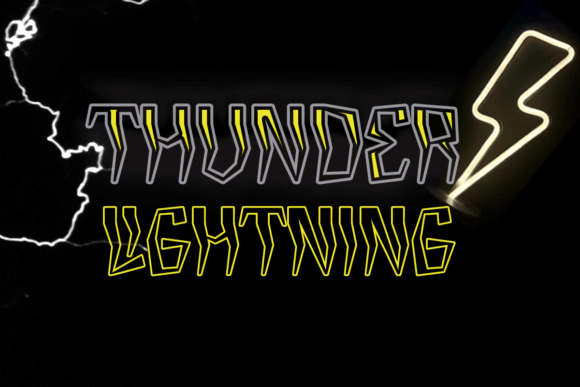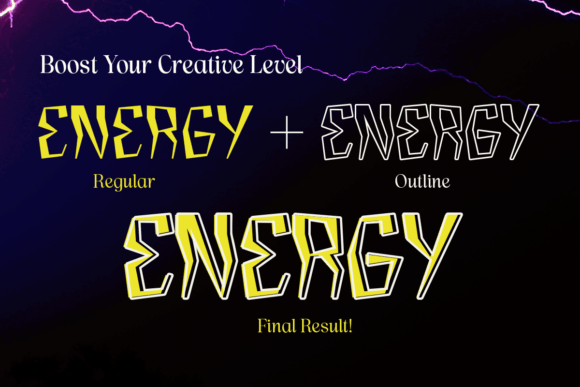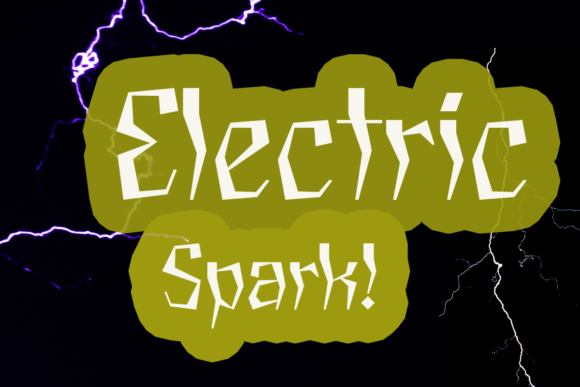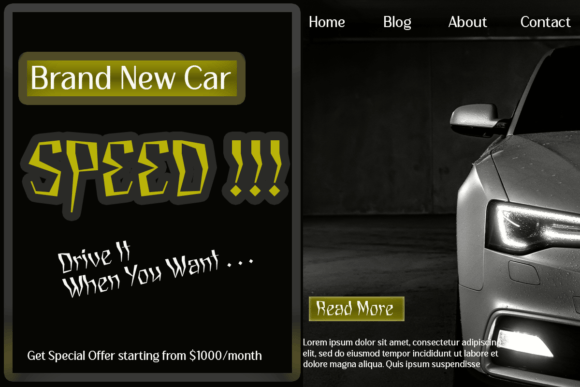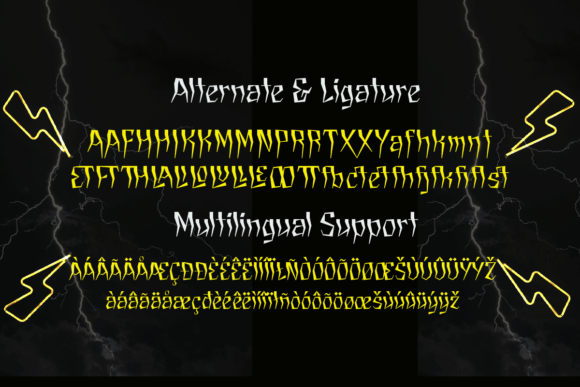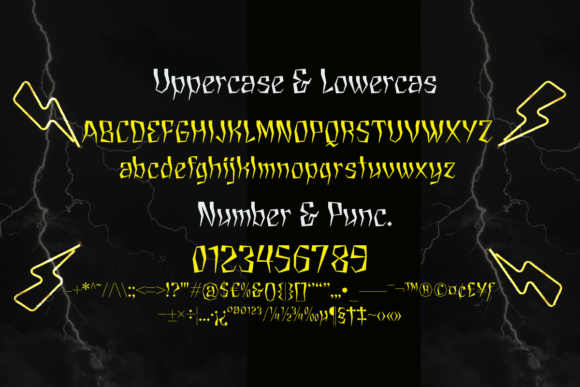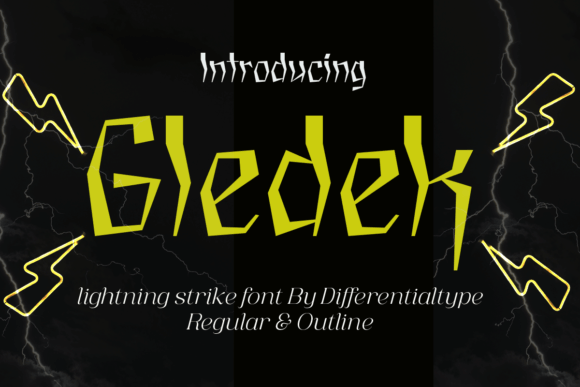
Gledek Font: The Ultimate Display Font for Bold and Eye-Catching Designs
Are you tired of using the same old fonts for your designs? Do you want to add a spark to your projects and make them stand out from the crowd? Look no further than the Gledek Font, a lightning display font that is sure to electrify your designs. In this article, we’ll take a closer look at the Gledek Font, its features, and how you can use it to take your designs to the next level.
What is Gledek Font?
Gledek Font is a display font that comes in two styles: regular and outline. This dynamic duo of fonts is perfect for creating bold and eye-catching designs that demand attention. The regular style is sleek and modern, while the outline style adds a touch of edginess and sophistication. Together, they complement each other perfectly, making them ideal for a wide range of design applications.
Features of Gledek Font
So, what makes Gledek Font so special? Here are just a few of its key features:
- Two styles: The regular and outline styles give you the flexibility to create a wide range of designs, from bold and playful to sleek and sophisticated.
- High-impact: The Gledek Font is designed to grab attention and make a statement. Its bold and edgy design makes it perfect for logos, posters, and other eye-catching applications.
- Versatile: The Gledek Font is suitable for a wide range of design applications, including logos, sports, games, club branding, posters, labels, comic books, and more.
How to Use Gledek Font
So, how can you use the Gledek Font in your designs? Here are a few ideas to get you started:
- Logos: Use the Gledek Font to create a bold and eye-catching logo that will help your brand stand out.
- Posters: Create a stunning poster with the Gledek Font that will grab attention and communicate your message effectively.
- Social media graphics: Use the Gledek Font to create social media graphics that will help you connect with your audience and build your brand.
- Comic books and games: The Gledek Font is perfect for comic books and games, adding a touch of excitement and energy to your designs.
Why Choose Gledek Font?
So, why should you choose the Gledek Font for your designs? Here are just a few reasons:
- Unique: The Gledek Font is a unique and distinctive font that will help your designs stand out from the crowd.
- High-quality: The Gledek Font is a high-quality font that is designed to deliver exceptional results.
- Flexible: The Gledek Font is flexible and versatile, making it suitable for a wide range of design applications.
In conclusion, the Gledek Font is a powerful and versatile display font that is perfect for designers and crafters who want to add a spark to their projects. With its two styles, high-impact design, and ease of use, the Gledek Font is an excellent choice for a wide range of design applications. Whether you’re creating logos, posters, social media graphics, or comic books, the Gledek Font is sure to help you create bold and eye-catching designs that demand attention. So why wait? Download the Gledek Font today and take your designs to the next level!